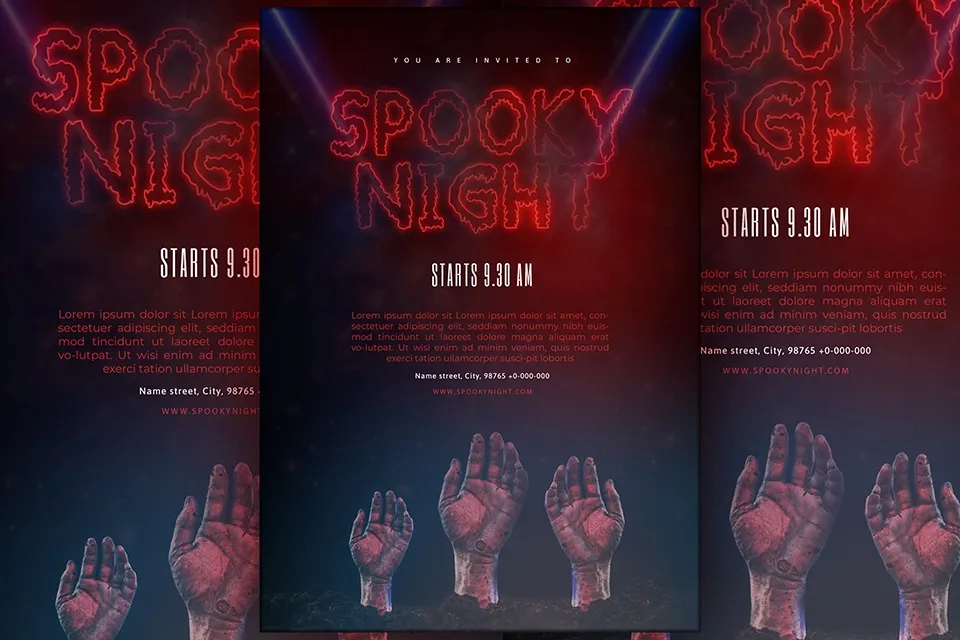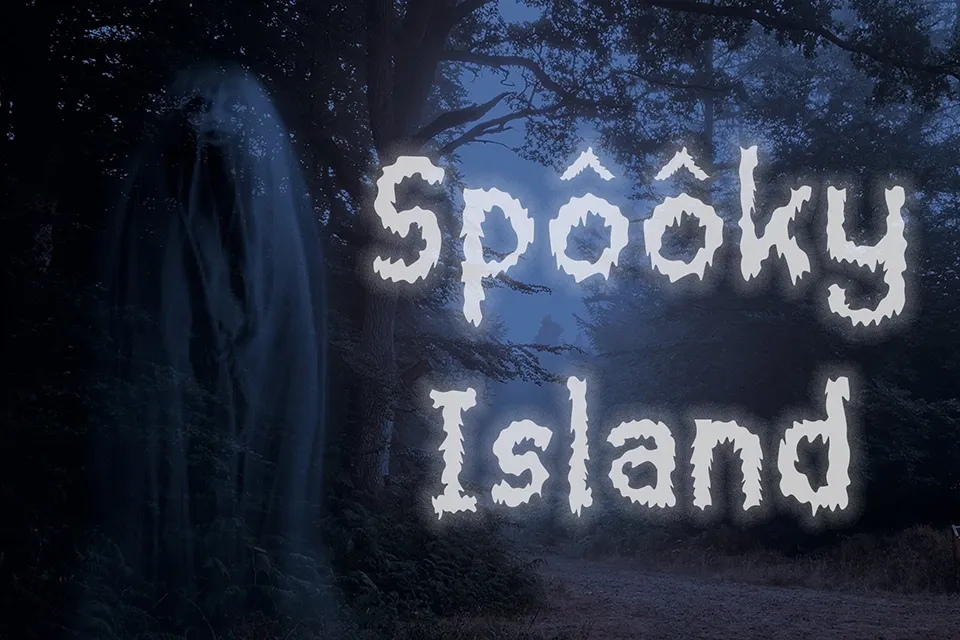
Creepy Forest Font
Creepy Forest Font is a distinctive hand-written brush typeface that embodies a spooky and haunting aesthetic. This scary-style display typeface features a complete character set including uppercase, lowercase, numerals, and punctuation marks. Perfect for Halloween projects, horror game titles, and eerie book covers, the font’s unique design makes it particularly effective for large titles, headings, and poster designs. Its brush-style strokes and eerie characteristics make it an excellent choice for spooky-themed social media posts, quotes, and image overlays. The font’s distinctive horror elements ensure it can transform any project into an eye-catching piece with a haunting atmosphere.